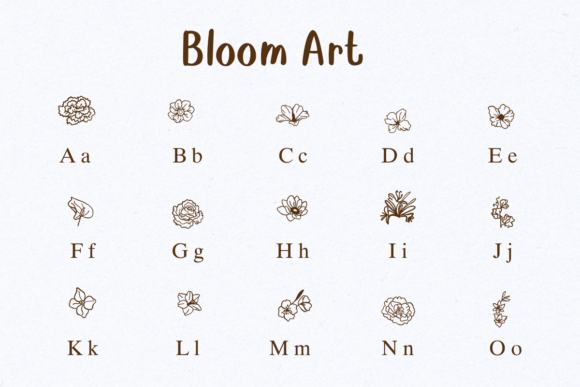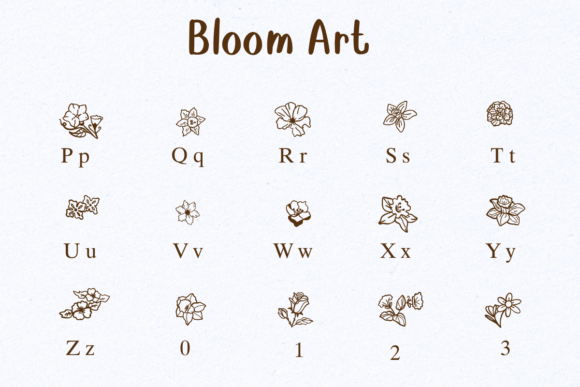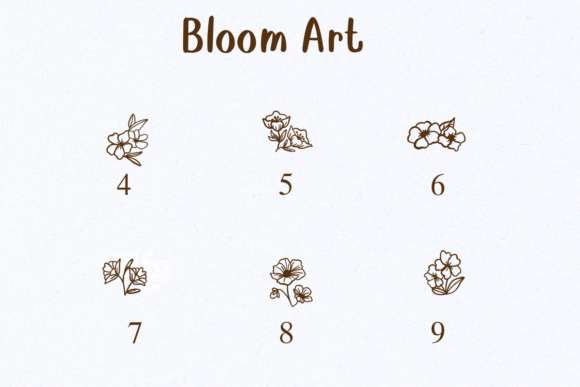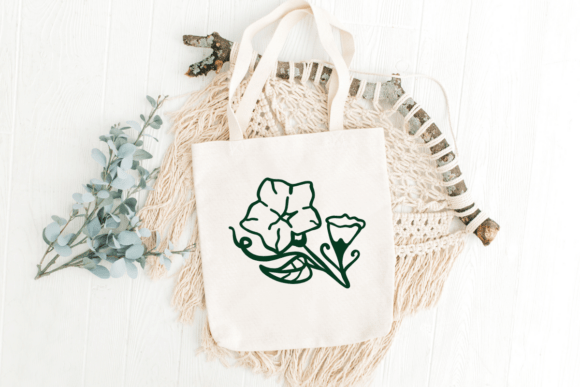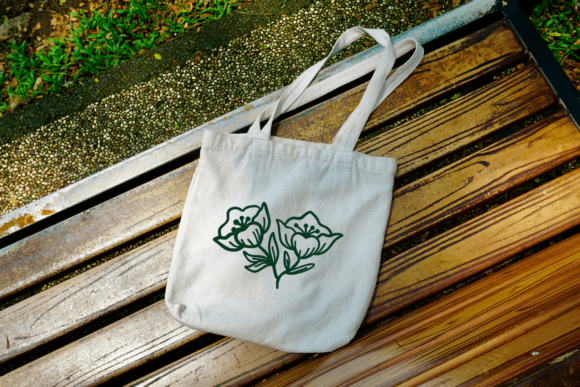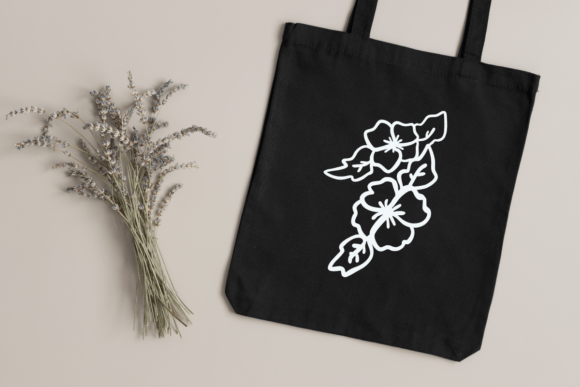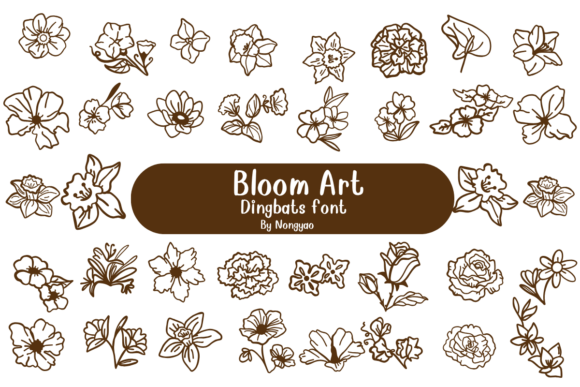
Bloom Art Font: A Delightful Addition to Your Design Arsenal
Are you a designer, crafter, or artist looking for a unique and playful font to elevate your creative projects? Look no further than the Bloom Art Font! This charming font is perfect for adding a touch of whimsy and personality to your designs, and we’re excited to dive into its features and benefits.
What is Bloom Art Font?
Bloom Art Font is a delightful, hand-drawn font that features beautiful, intricate designs and a playful, doodle-like aesthetic. With its unique blend of artistic and elegant elements, this font is sure to capture the attention of your audience and leave a lasting impression.
Key Features of Bloom Art Font
• Coloring outline and dingbats: Bloom Art Font includes a range of coloring outline and dingbat characters, perfect for creating custom illustrations, doodles, and designs.
• Doodle and cartoon-inspired: With its playful, hand-drawn aesthetic, this font is ideal for creating fun, engaging designs that appeal to a wide range of audiences.
Why Choose Bloom Art Font?
So, what sets Bloom Art Font apart from other fonts on the market? Here are just a few reasons why designers and crafters love this font:
• Unique and eye-catching: Bloom Art Font offers a distinctive, one-of-a-kind look that will help your designs stand out from the crowd.
Using Bloom Art Font in Your Designs
So, how can you incorporate Bloom Art Font into your creative projects? Here are a few ideas to get you started:
• Digital art and illustrations: Use Bloom Art Font to add custom text and captions to your digital art, illustrations, and mixed media designs.
• Crafting and scrapbooking: This font is perfect for creating custom titles, headings, and embellishments for your craft projects, such as scrapbooking, card making, and journaling.
• Branding and marketing: Bloom Art Font can be used to create eye-catching logos, social media graphics, and advertising materials that showcase your brand’s personality and style.
Tips and Tricks for Getting the Most Out of Bloom Art Font
To help you make the most of this amazing font, here are a few tips and tricks:
• Experiment with colors and textures: Bloom Art Font looks great in a range of colors and textures, so don’t be afraid to get creative and try out different combinations.
• Mix and match with other fonts: This font pairs well with other playful, handwritten fonts, so feel free to experiment with different font combinations.
• Use the dingbats and outlines: The coloring outline and dingbat characters in Bloom Art Font are perfect for adding extra visual interest and personality to your designs.
In conclusion, Bloom Art Font is a delightful, versatile font that’s perfect for designers, crafters, and artists looking to add a touch of whimsy and personality to their creative projects. With its unique features, multi-format compatibility, and ease of use, this font is sure to become a staple in your design arsenal.